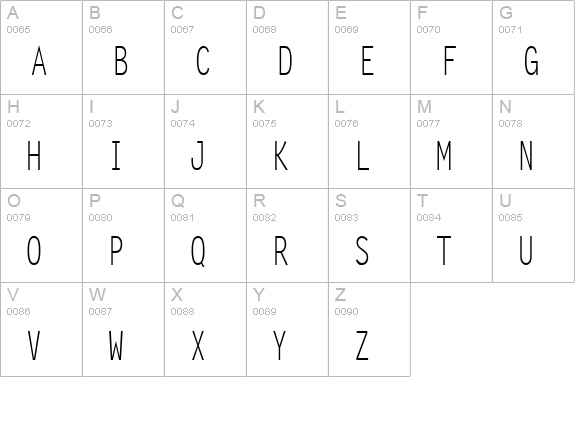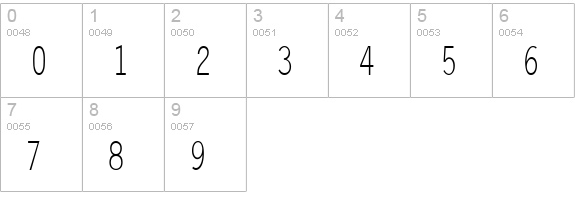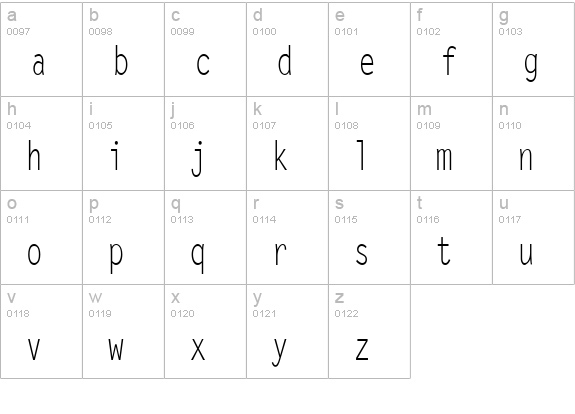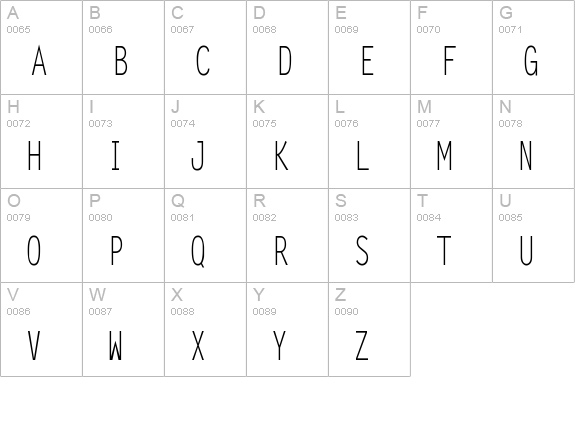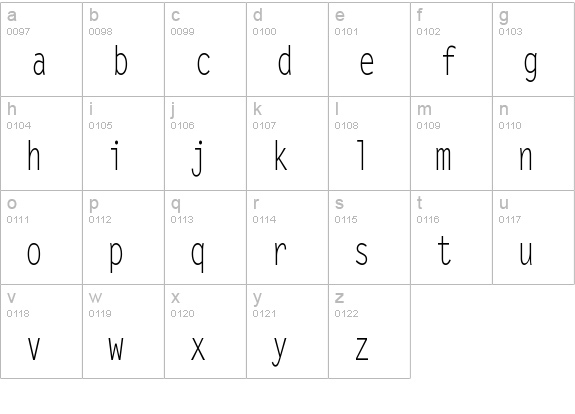
Lechter Condensed Normal is the standard, neutral, condensed-width variant in the Lechter typeface family \xE2\x80\x94 well suited to general body text, paragraphs, and standard typographic work.
Introducing Lechter Condensed Normal, a sleek and sophisticated font that is sure to make a bold statement in any design project. With its clean lines and modern aesthetic, this font exudes professionalism and elegance. Lechter Condensed Normal is the perfect choice for those looking to add a touch of sophistication to their branding, advertising, or editorial designs. Its condensed form allows for maximum impact and readability, making it ideal for headlines, titles, and subheadings. But what makes Lechter Condensed Normal truly stand out is its versatility. Whether you're working on a corporate brochure, a fashion magazine, or a website, this font will seamlessly integrate into any design style, adding a touch of class and refinement. And the best part? Lechter Condensed Normal is available for free! That's right, you can download this incredible font at FontsMarket.com without spending a dime. So why wait? Enhance your designs with Lechter Condensed Normal and elevate them to new heights of sophistication and professionalism.